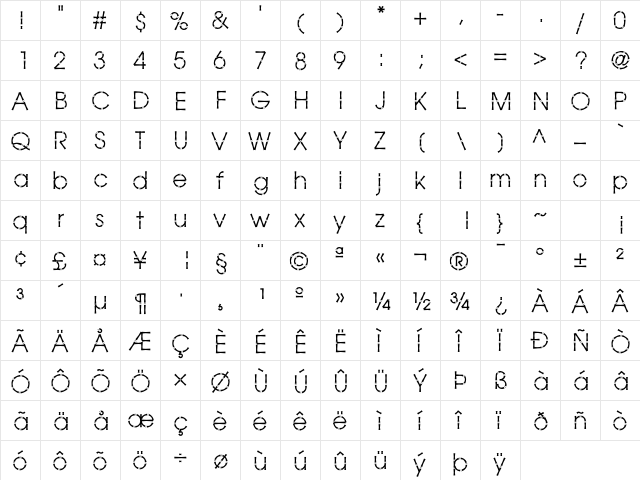
Bamboo Gothic Book
Design Context for Bamboo Gothic Typeface
Bamboo Gothic takes a clean, functional approach — its unadorned letterforms prioritise legibility and work reliably across screen and print environments.
Font Pairing: Works well alongside a characterful serif or display font that can carry the expressive load while Bamboo Gothic handles the functional copy.
Pro Tip: Use Bamboo Gothic for UI labels, navigation, and short-form body copy where clean legibility is the priority.